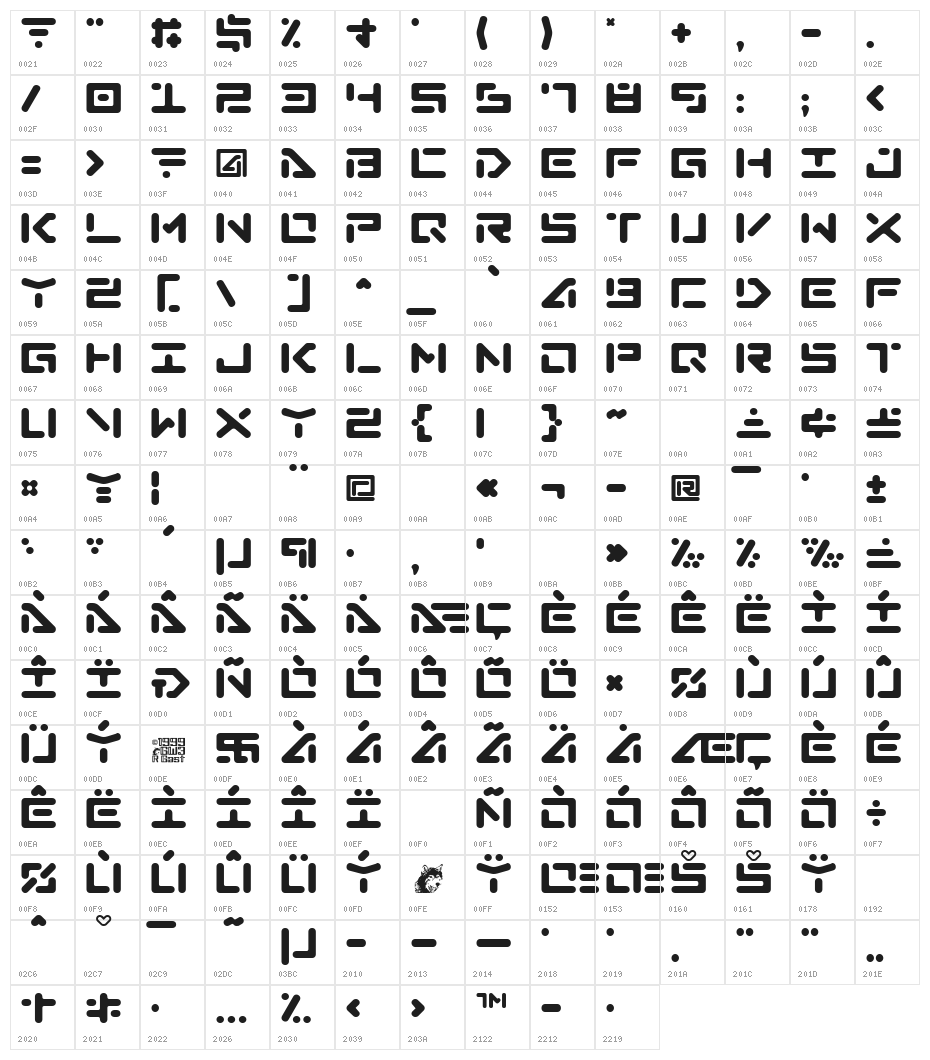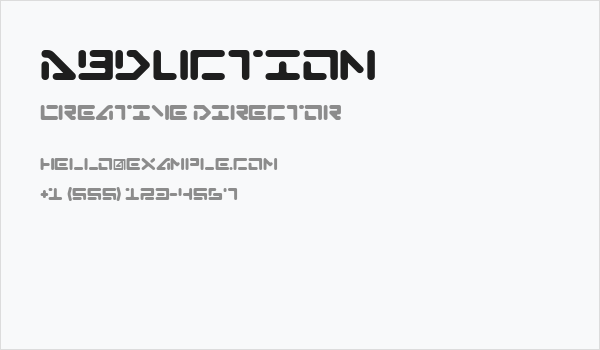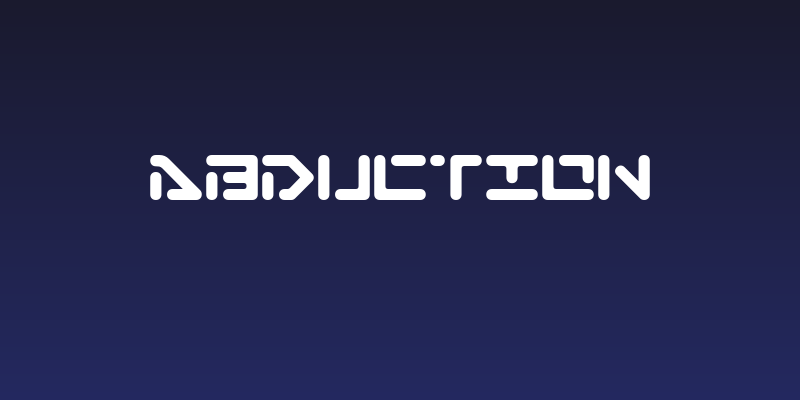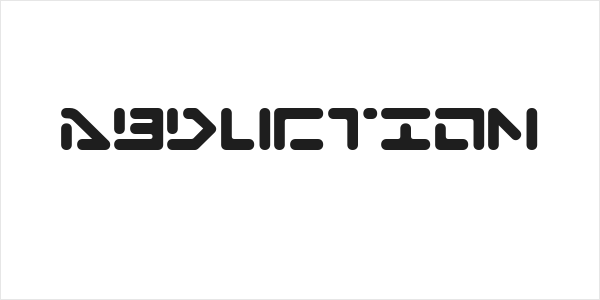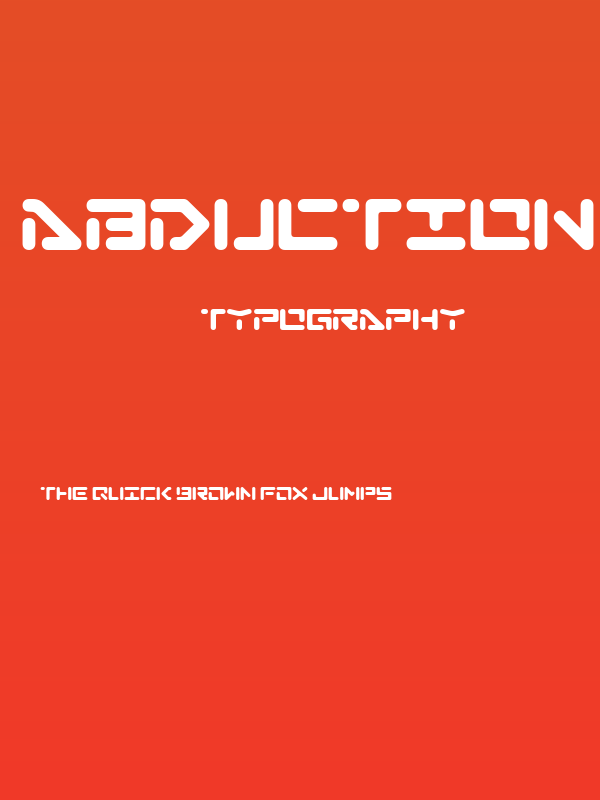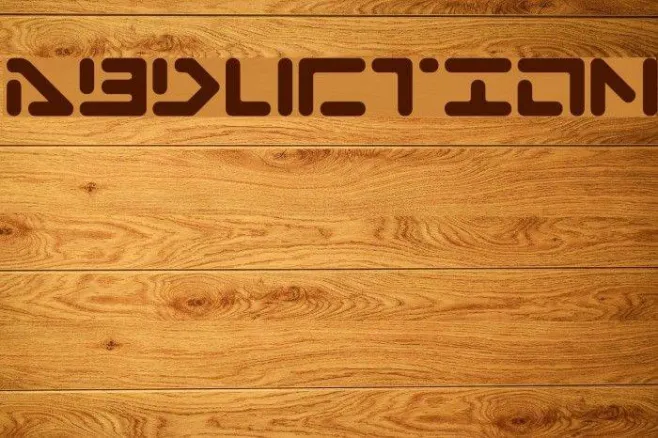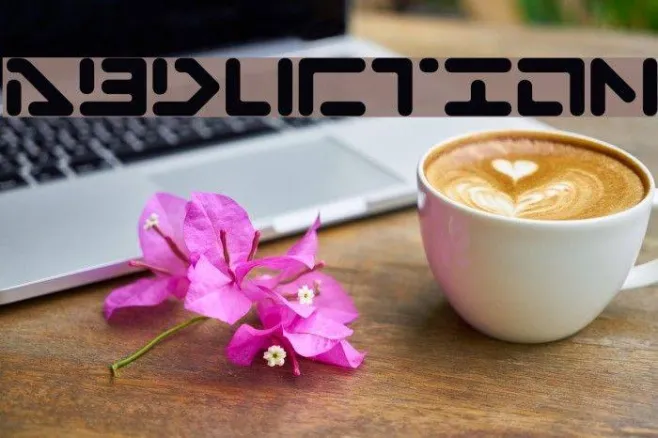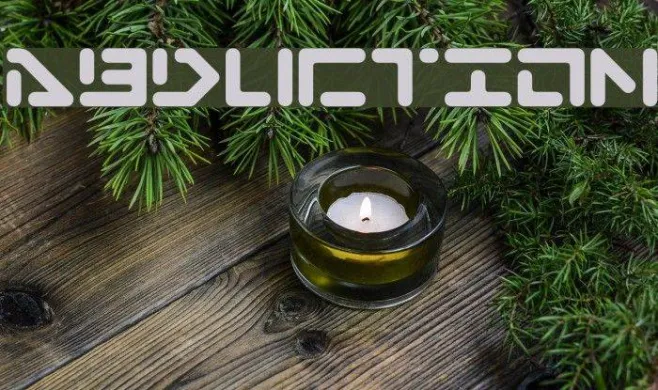
Abduction Font
Abduction Description
This font features a futuristic and geometric design, characterized by its bold, rounded shapes and distinct cut-out sections within each character. The letters and numbers are constructed with a consistent thickness, creating a uniform appearance across the typeface. The style is reminiscent of digital or sci-fi themes, making it suitable for projects that require a modern and technological aesthetic. The special characters maintain the same design principles, ensuring cohesion throughout the font set. The overall look is both striking and easily recognizable, ideal for capturing attention.
| Proposed Projects | Ideal for sci-fi themed designs, technology branding, video game titles, and futuristic posters. |